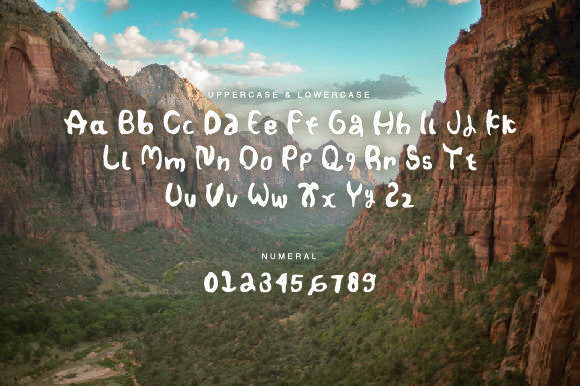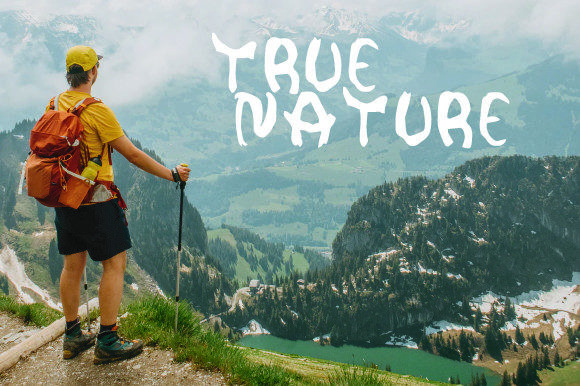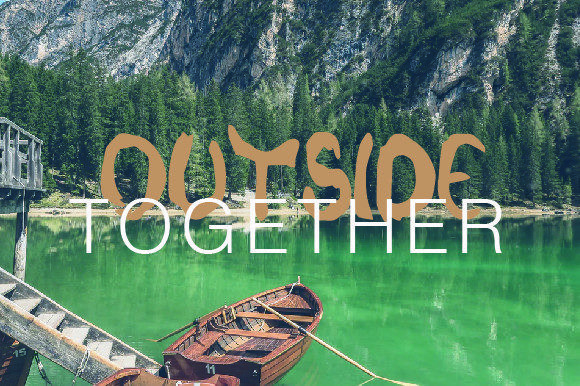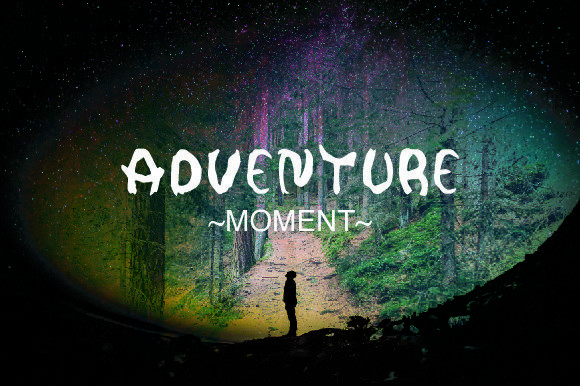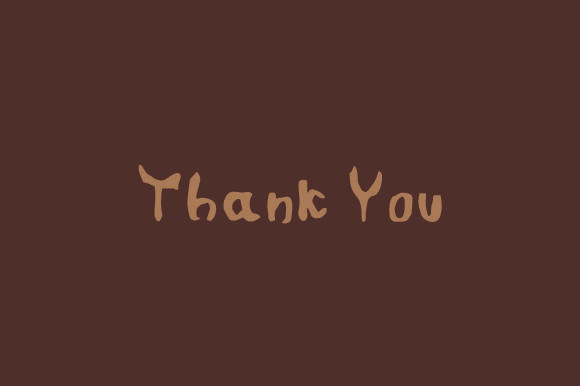
Introduction to Lumer Font
Lumer is a cool and fun display font.
Whether you are using it for cartoon-related designs, children games, quotes, titles, brand names, book covers, posters, or just any creation that requires a touch of joy, this font is a great choice .